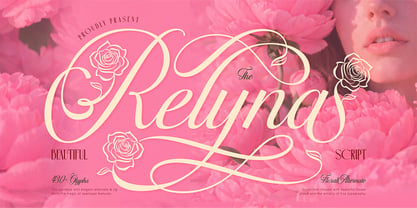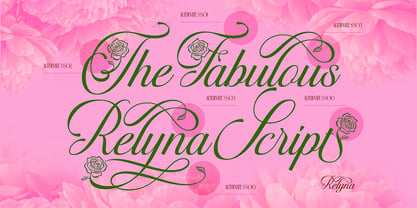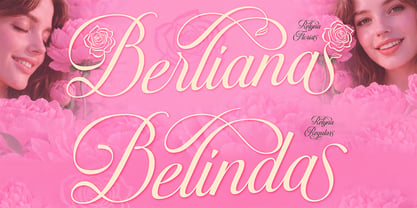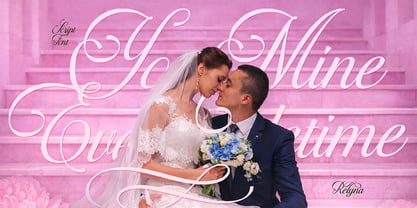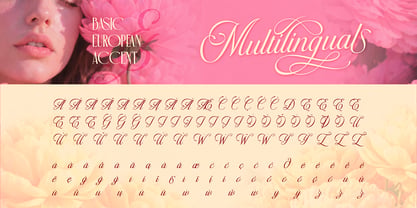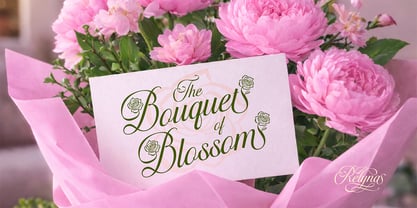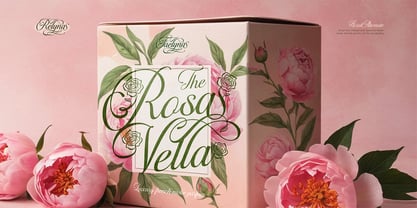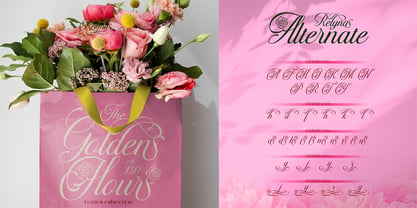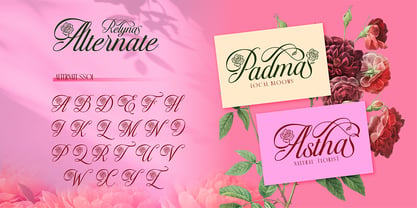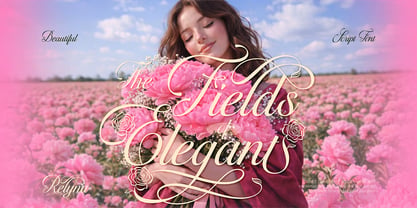
Relyna
by Burntilldead
The Relyna Font Family was designed by Eric Kurniawan and published by Burntilldead. Relyna contains 2 styles and family package options. More about this family
Relyna is a beautiful script font inspired by blooming flowers and romantic moments. It comes with graceful swashes, soft curves, and unique floral alternates that make your design look more elegant and artistic. This font is designed to bring a feminine, luxurious, and timeless feel to any project. The flowing letterforms create a smooth and natural handwriting style, while the decorative alternates add a special floral touch. Perfect for: Wedding invitations, Beauty & skincare branding, Perfume packaging, Florist logos, Fashion branding, Social media quotes, Luxury product labels, Romantic typography projects Features: A - Z set (Uppercase & Lowercase), Number, Punctuation, Alternates, Ligatures, Multilingual